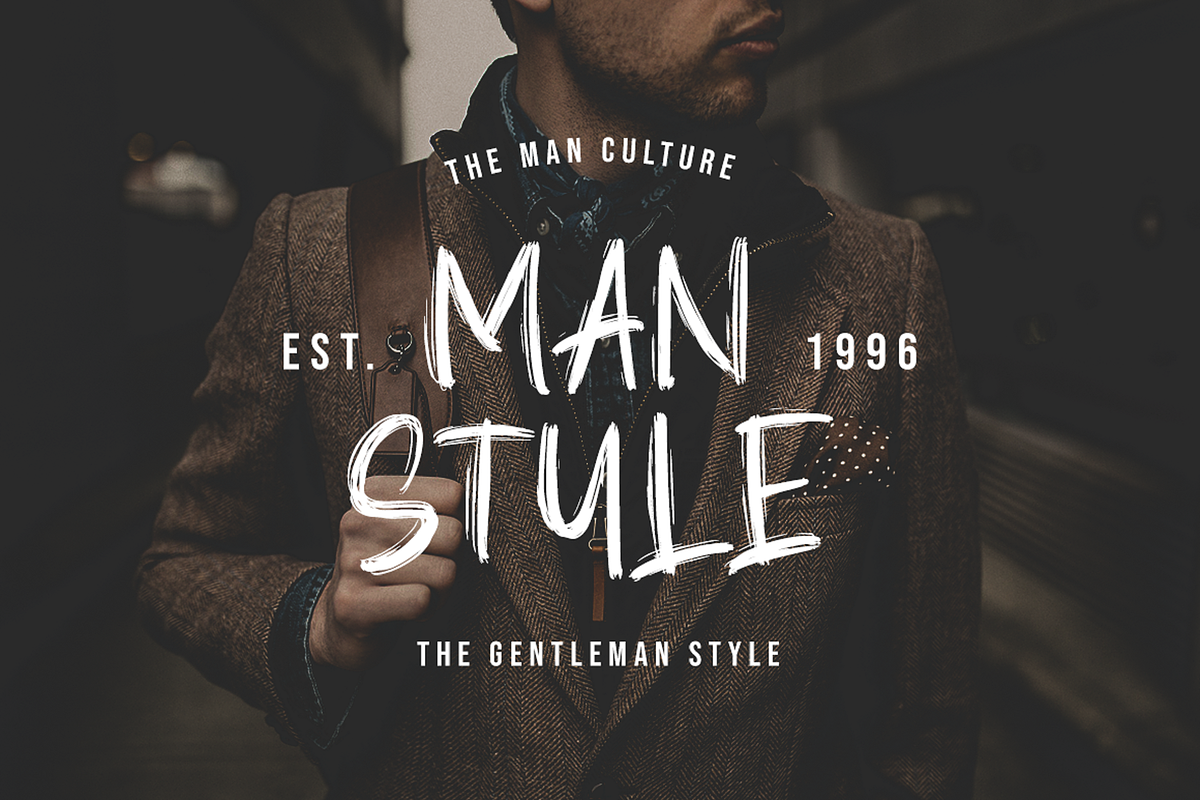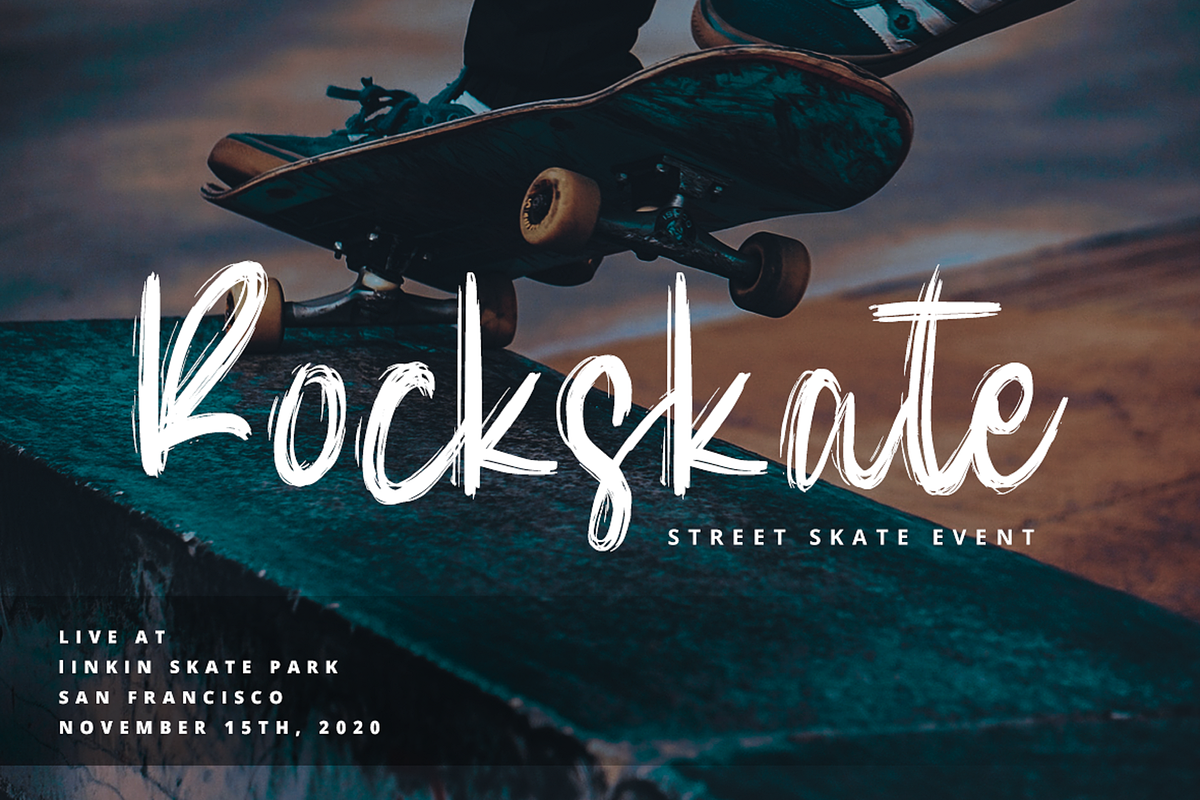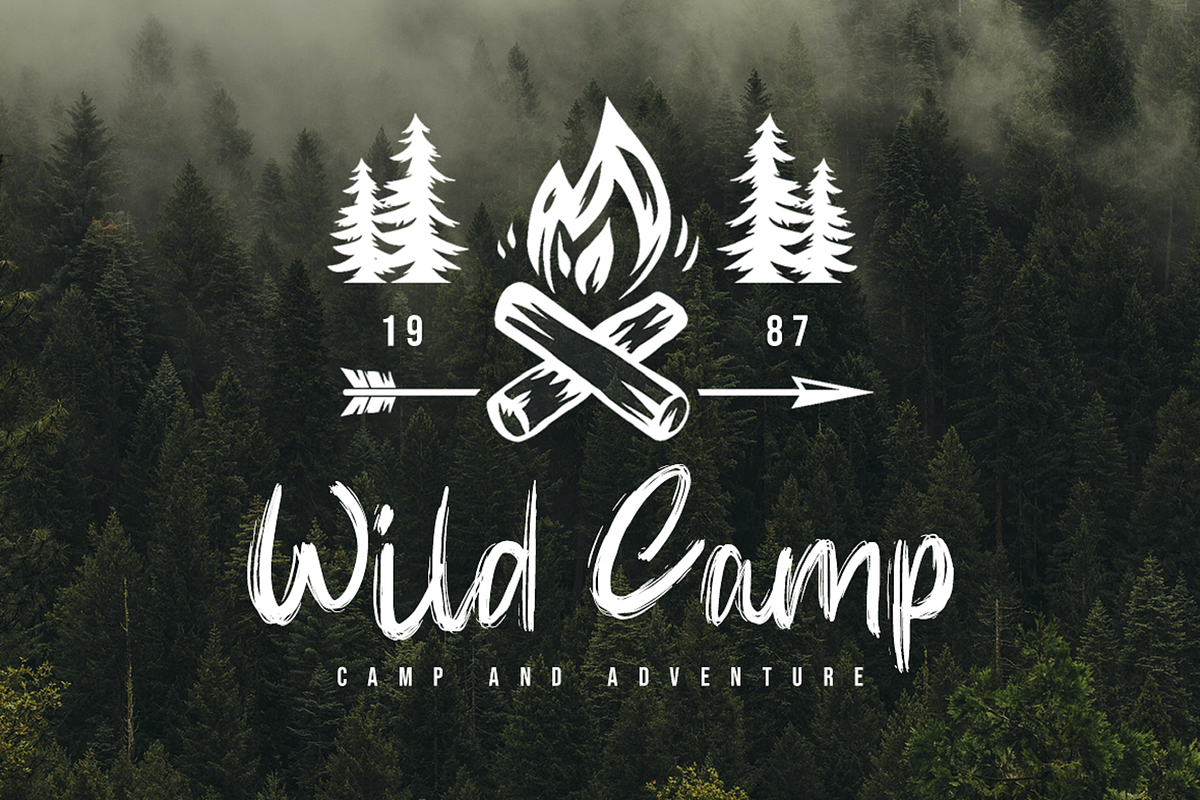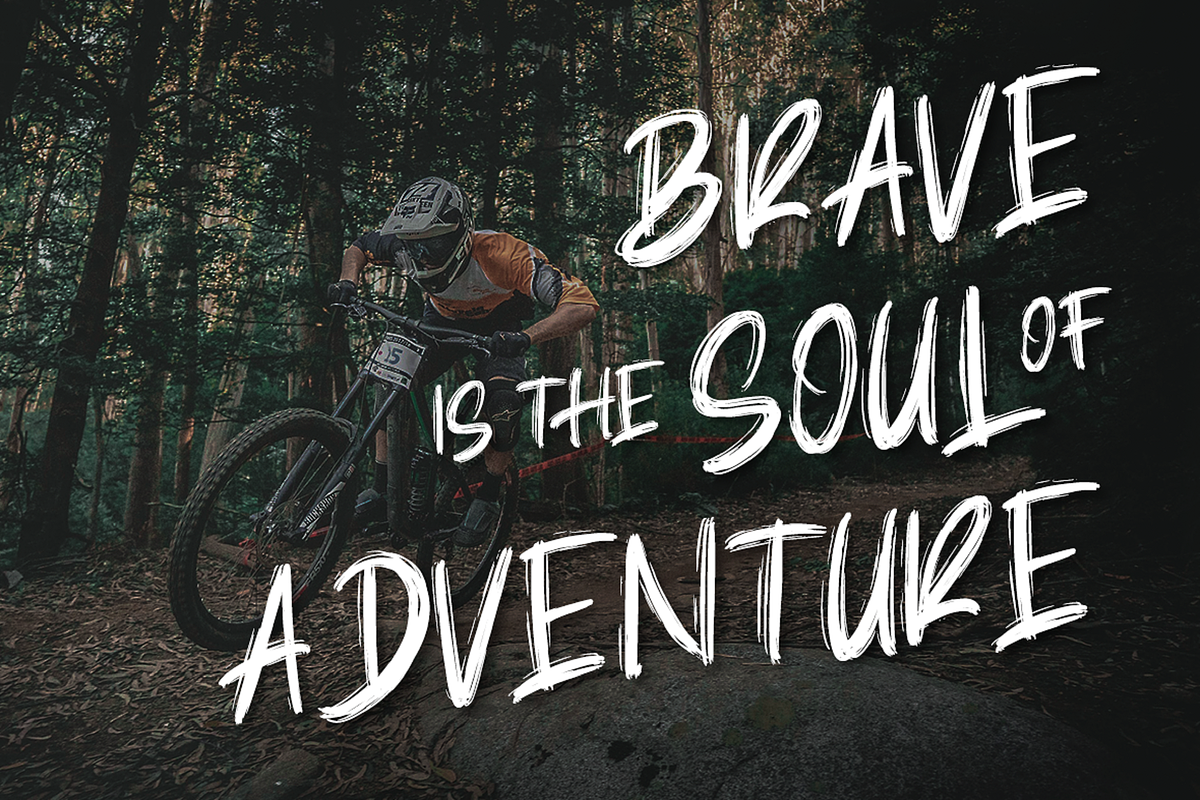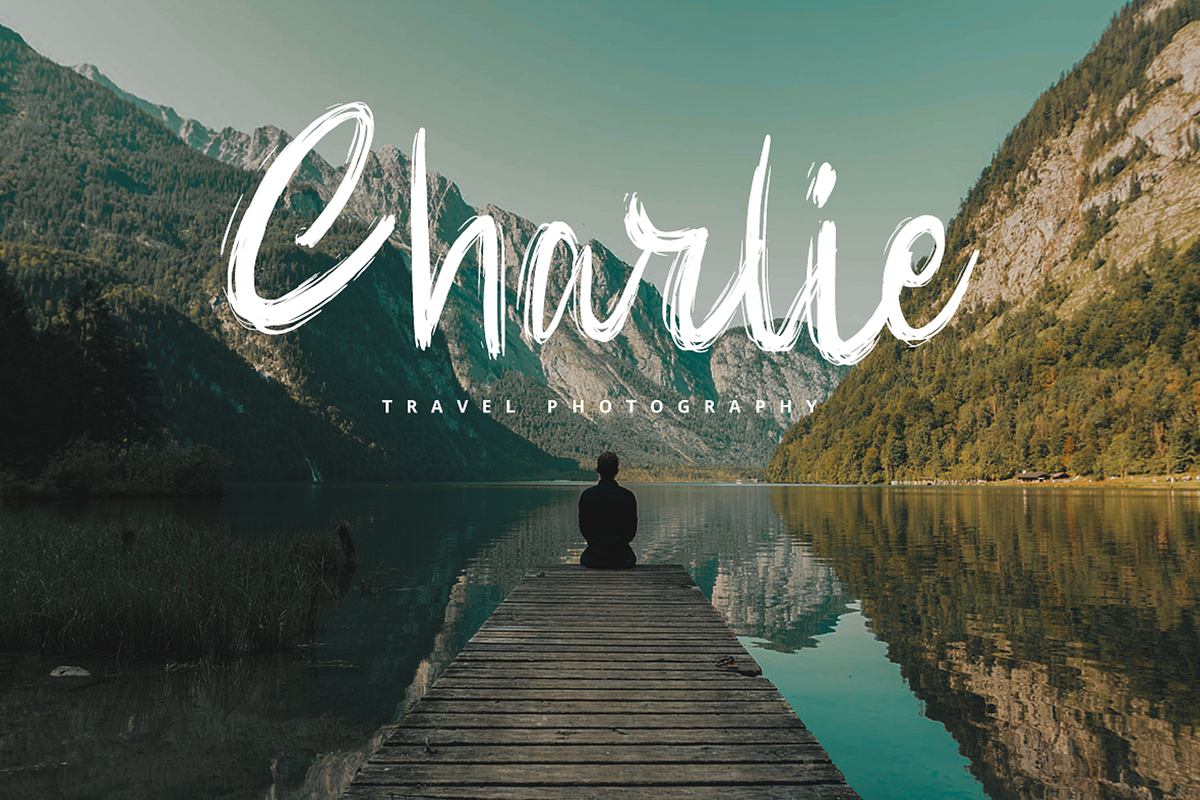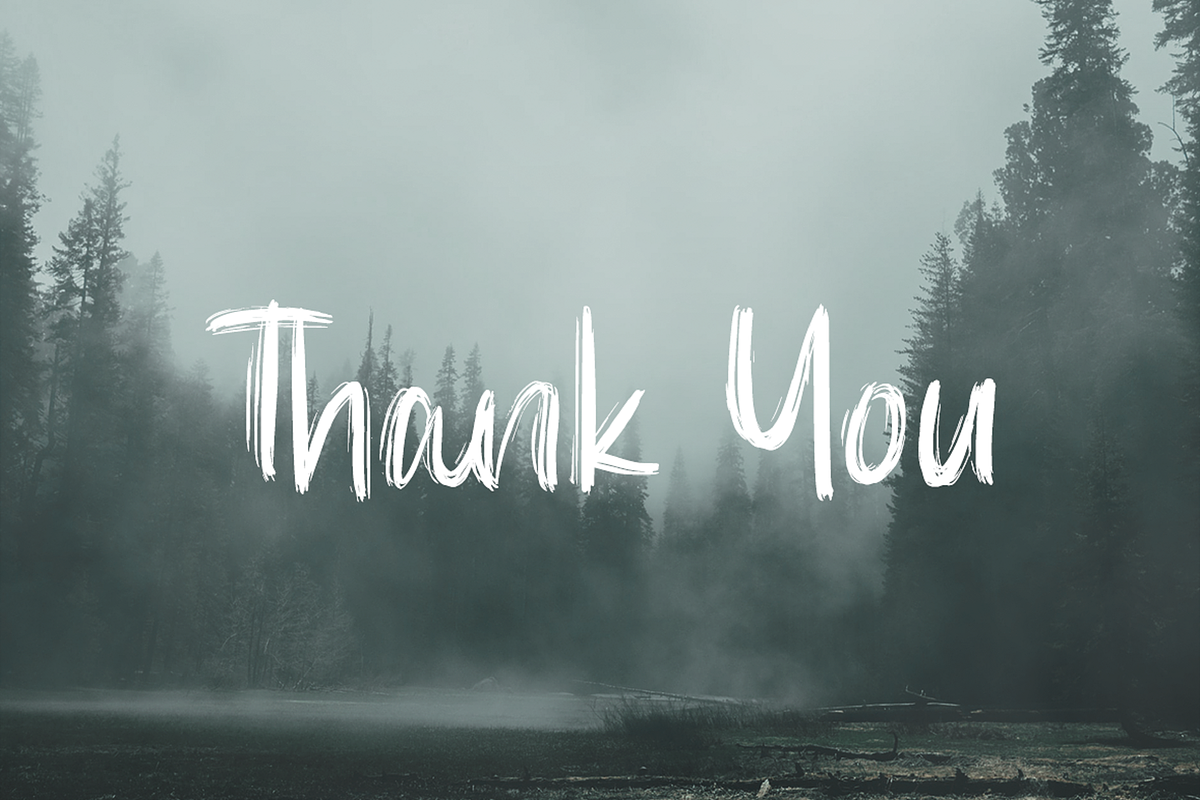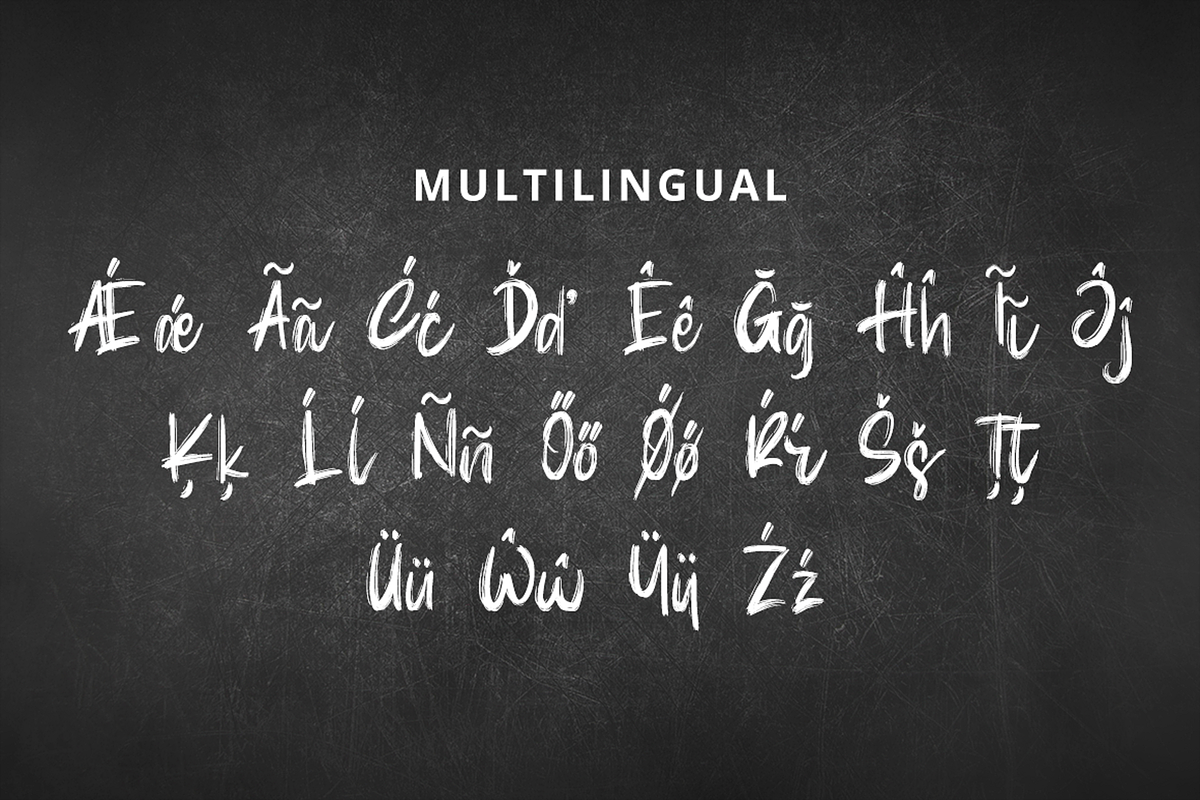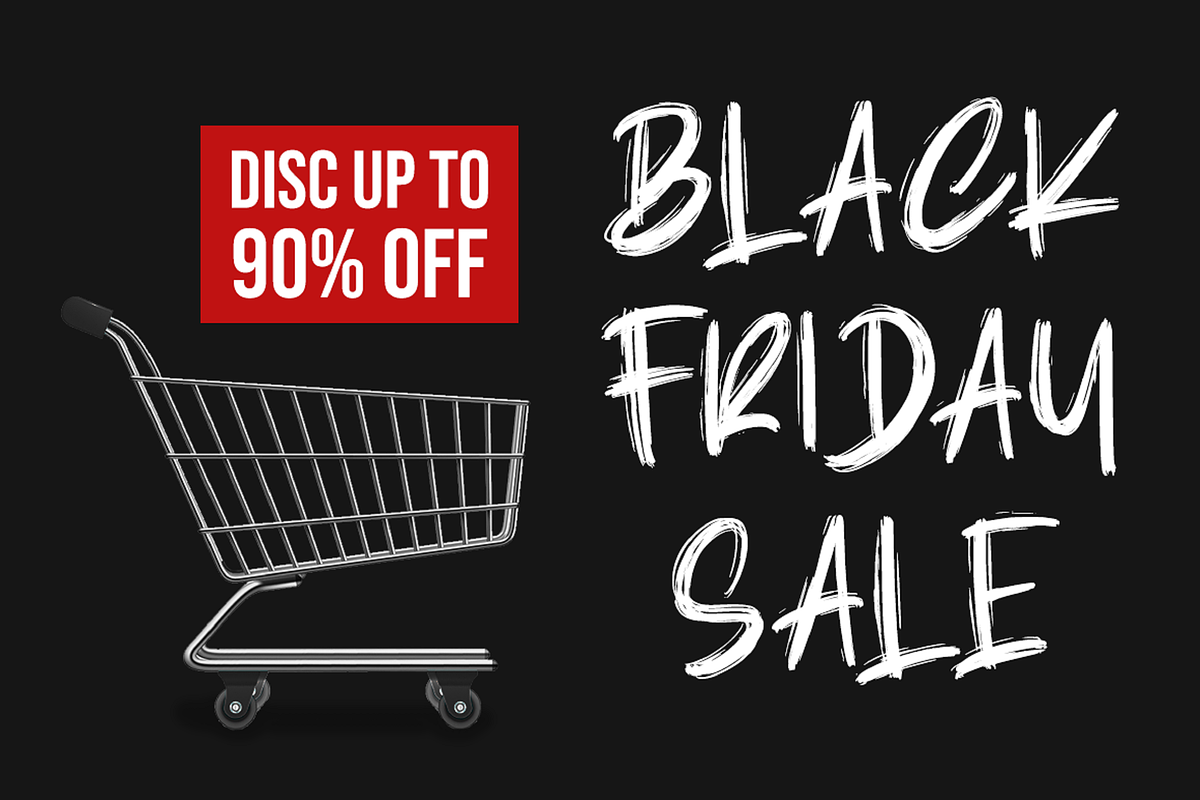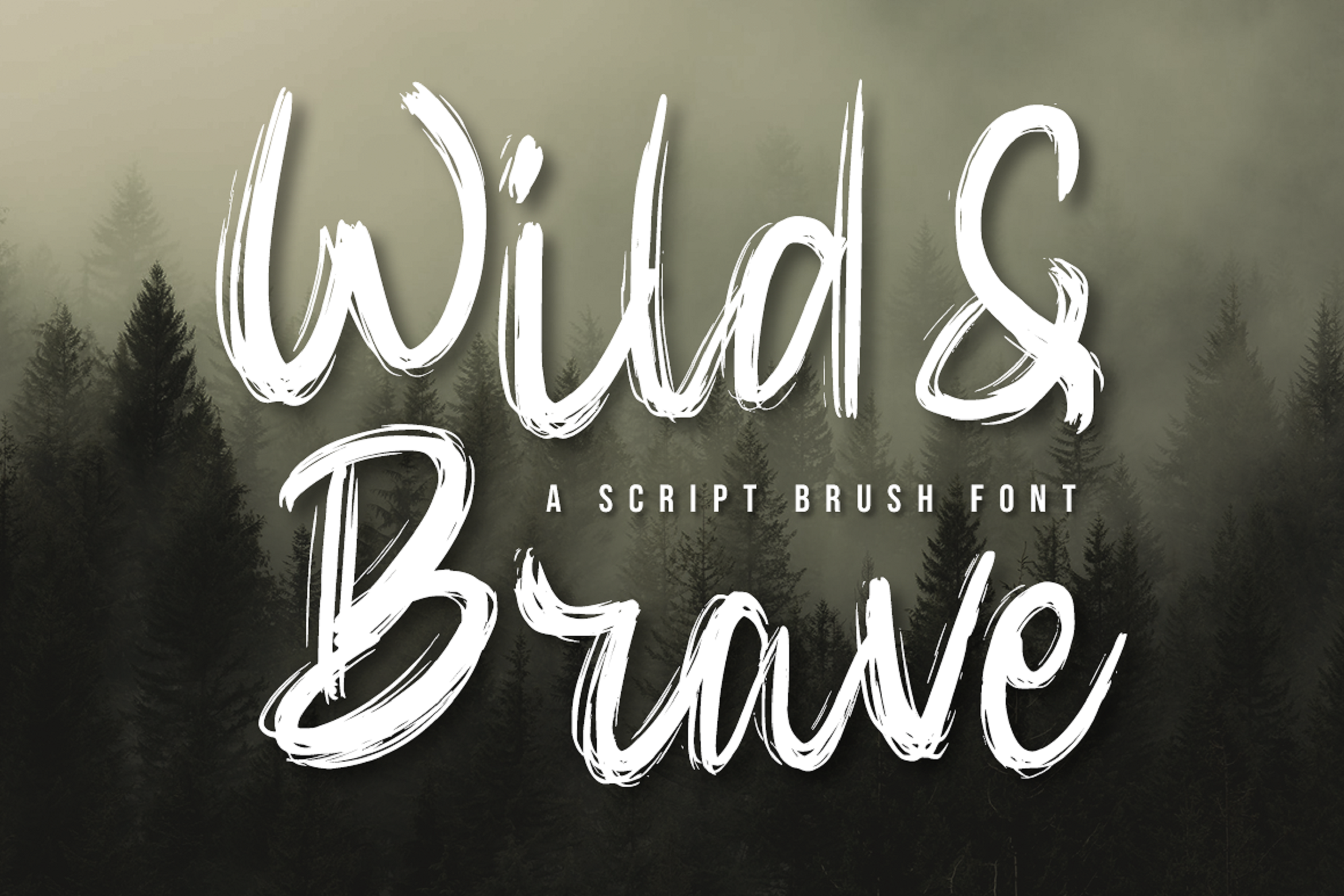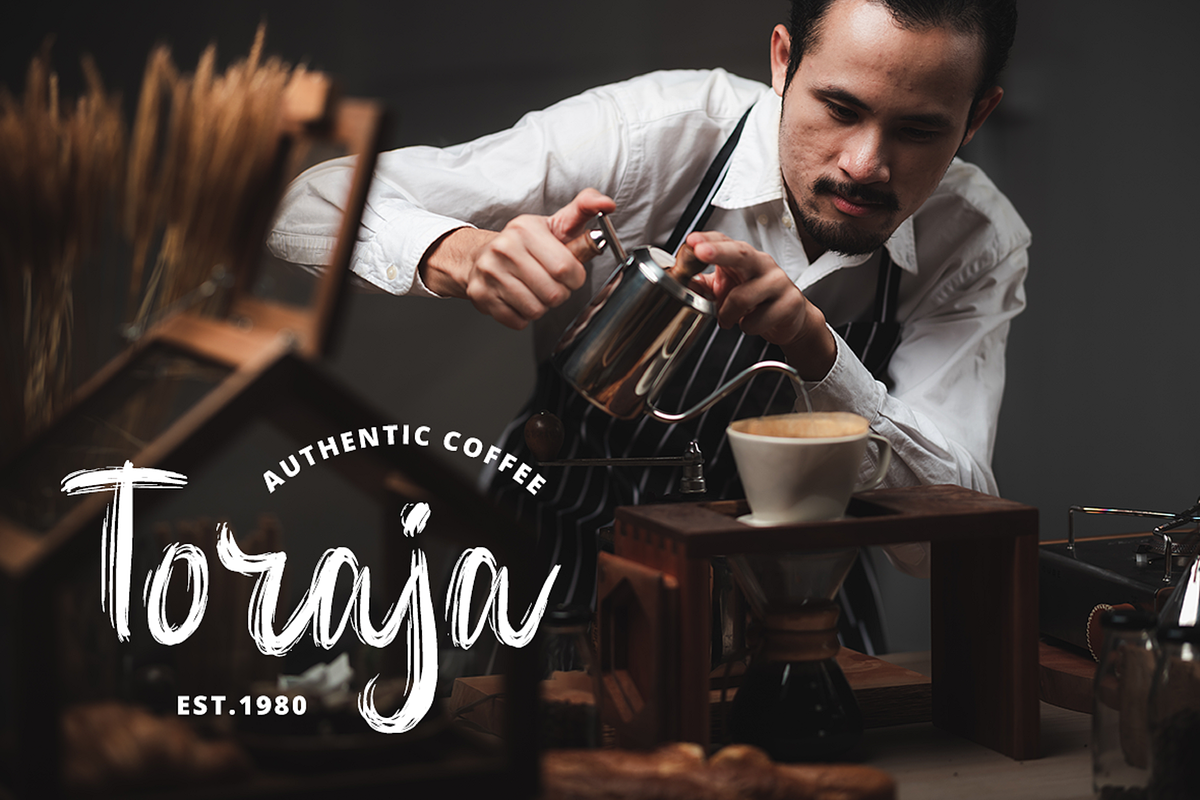
Script Brush Font
Adventurous, bold, expressive. You want to carve out a mark in this world, and you’re not shy to do that. Make a statement!
This bold brush font is perfect for anything indie, adventurous, and direct. A real head-turner for your presentation, designs, website illustrations, and much more.
Enjoy the standard Latin characters along with multilingual character support, as well as numerals and punctuation characters.
- Multilingual & Ligature Support